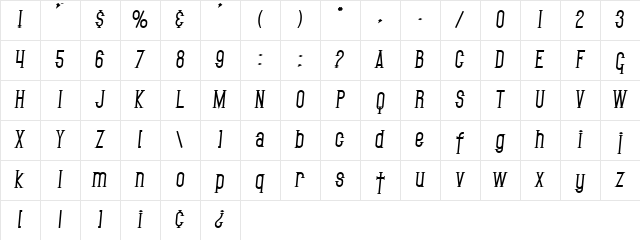
SF Gothican Bold Italic Free Font
SF Gothican Bold Italic
Design Context for SF Gothican
SF Gothican takes a clean, functional approach - its unadorned letterforms prioritise legibility and work reliably across screen and print environments. The slanted form adds forward momentum and visual energy. Its bold stroke weight gives it real presence on the page.
Font Pairing: Use SF Gothican for headlines alongside a lighter-weight sans or serif for body copy to establish clear visual hierarchy.
Pro Tip: Use SF Gothican for UI labels, navigation, and short-form body copy where clean legibility is the priority.